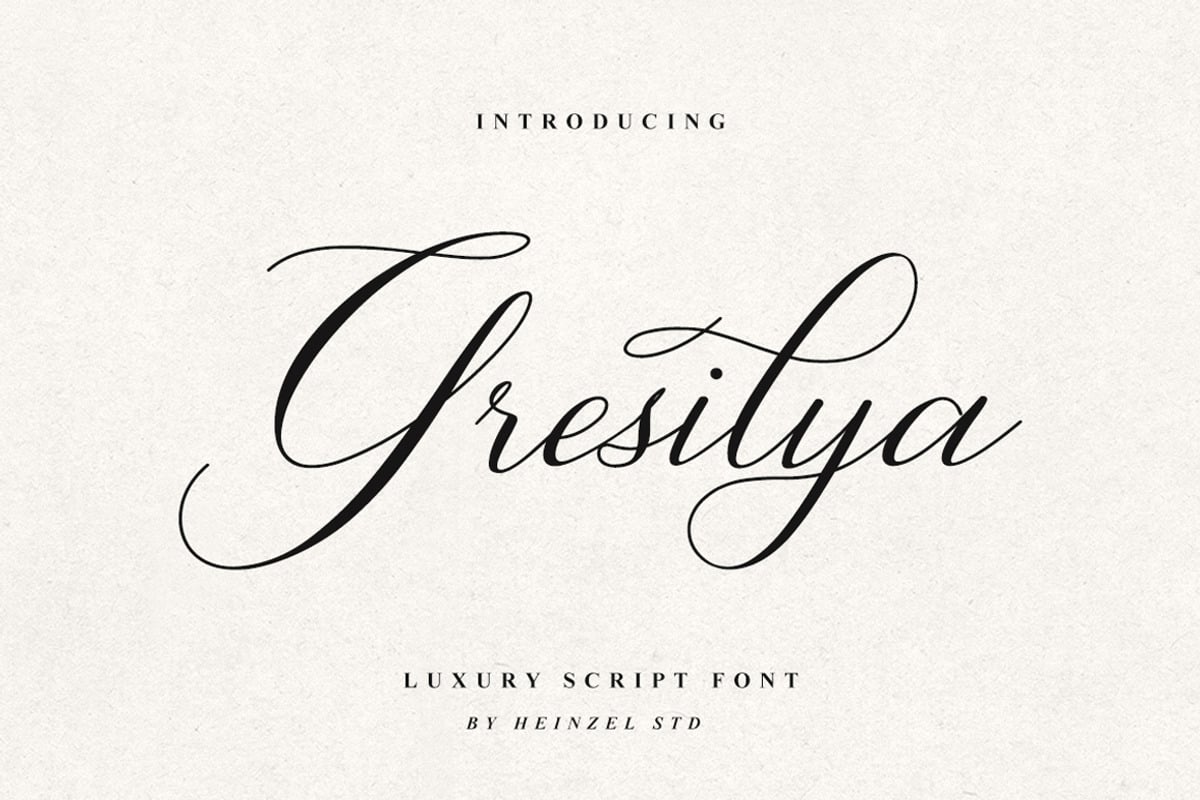
Gresilya Calligraphy Script Font
Gresilya is the refined, elegant script font that elevates logos, invitations, and branding to a whole new level.
With its classy, flowing letterforms and modern calligraphy aesthetic, Gresilya is built for designers who demand sophistication. Whether you're crafting wedding stationery, social media graphics, luxury branding, or personal projects, this typeface delivers effortless elegance every time.
Gresilya Features:
- Alternates for added versatility and creative flexibility
- Ligatures for beautifully flowing letter combinations
- Multilingual Support including extended Latin characters